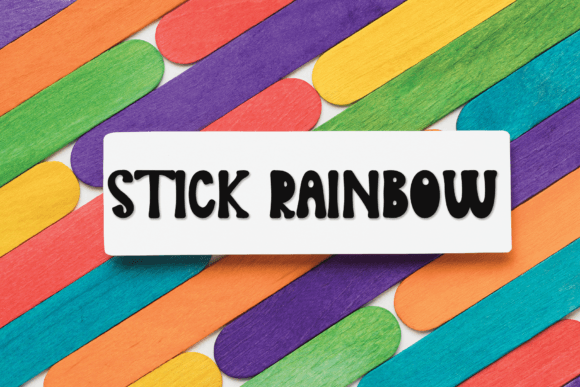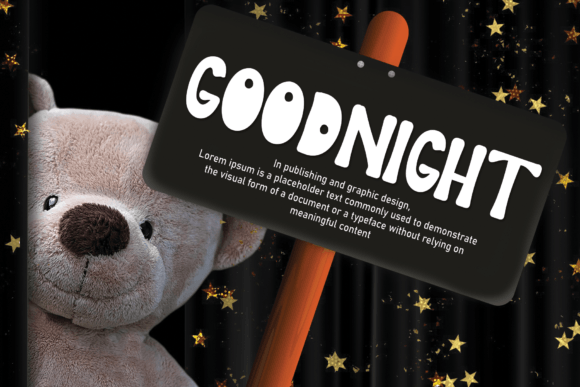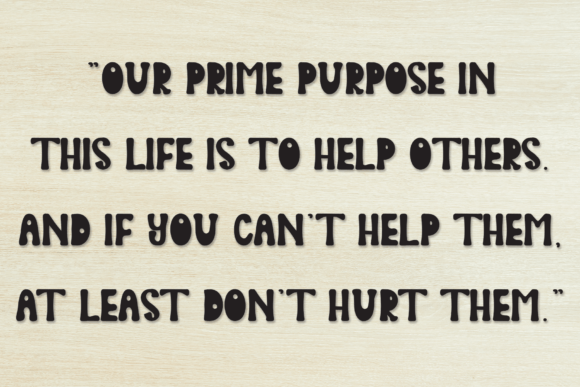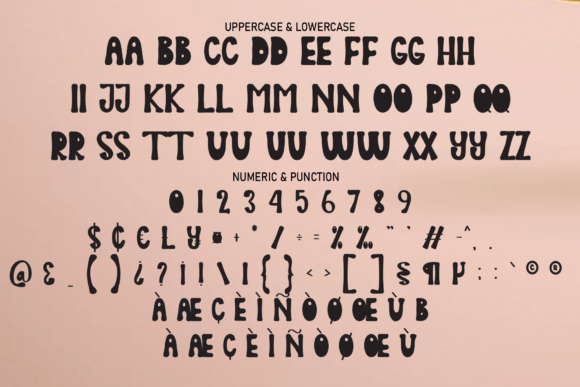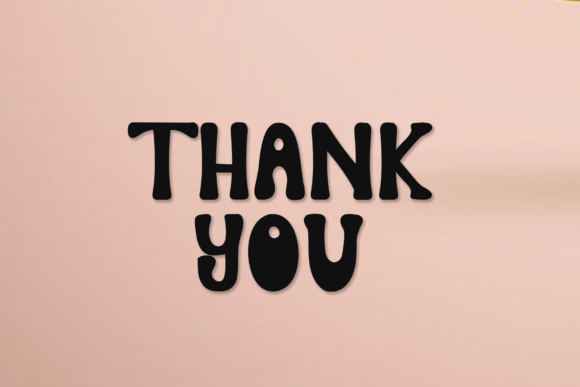
Flying Balloon Font: Elevate Your Designs with a Groovy Twist
Are you tired of using the same old fonts in your creative projects? Look no further than the Flying Balloon Font, a fun and quirky display font that’s sure to add a groovy vibe to your designs. With its playful and whimsical style, this font is perfect for designers and crafters looking to make a statement.
What is Flying Balloon Font?
Flying Balloon Font is a unique and eye-catching display font that’s designed to add a touch of whimsy to your designs. Its fun and quirky style makes it perfect for a variety of creative projects, from posters and flyers to social media graphics and crafts.
The font features bold, rounded letters with a playful, bouncy feel that’s reminiscent of flying balloons. Its groovy vibe is sure to evoke memories of the 1960s and 1970s, making it perfect for designs that require a retro or vintage feel.
Key Features of Flying Balloon Font
- Fun and quirky style: Flying Balloon Font is designed to add a playful touch to your designs. Its unique style is sure to grab attention and make your designs stand out.
- Groovy vibe: The font’s retro feel is perfect for designs that require a vintage or nostalgic touch.
- Bold and rounded letters: The font features bold, rounded letters that are easy to read and fun to look at.
- Versatile: Flying Balloon Font can be used for a variety of creative projects, from posters and flyers to social media graphics and crafts.
Here are a few ideas for using Flying Balloon Font in your designs:
- Posters and flyers: Use Flying Balloon Font to create eye-catching posters and flyers for events, promotions, or announcements.
- Social media graphics: Add a playful touch to your social media graphics, such as Facebook posts, Instagram stories, or Twitter headers.
- Crafts: Use Flying Balloon Font to create fun and quirky crafts, such as handmade cards, gift tags, or DIY decorations.
Benefits of Using Flying Balloon Font
There are many benefits to using Flying Balloon Font in your designs. Here are a few:
- Adds a playful touch: Flying Balloon Font is sure to add a playful and whimsical touch to your designs.
- Grabs attention: The font’s bold and rounded letters are sure to grab attention and make your designs stand out.
- Evokes nostalgia: The font’s retro feel is sure to evoke memories of the 1960s and 1970s, making it perfect for designs that require a vintage or nostalgic touch.
Tips for Using Flying Balloon Font
Here are a few tips for using Flying Balloon Font in your designs:
- Use it sparingly: While Flying Balloon Font is fun and playful, it can be overwhelming if used too much. Use it sparingly to add a touch of whimsy to your designs.
- Pair it with other fonts: Flying Balloon Font pairs well with other fonts, such as sans-serif fonts or script fonts. Experiment with different font combinations to find the perfect look for your design.
- Experiment with colors: The font’s bold and rounded letters look great in bright, bold colors. Experiment with different colors to find the perfect look for your design.
Flying Balloon Font is a fun and quirky display font that’s sure to add a groovy vibe to your designs. With its playful and whimsical style, it’s perfect for designers and crafters looking to make a statement. Whether you’re creating posters and flyers, social media graphics, or crafts, Flying Balloon Font is sure to elevate your designs and add a touch of whimsy. So why not give it a try and see the results for yourself?